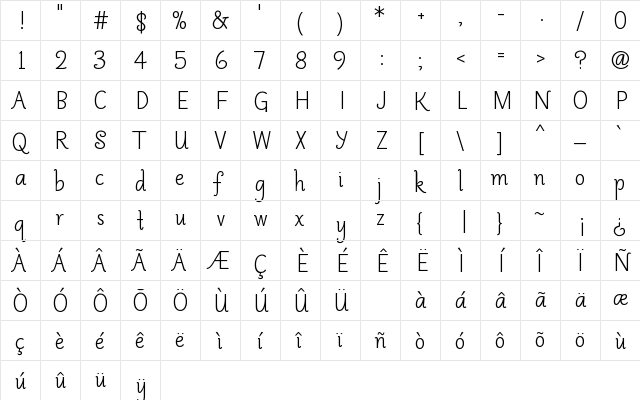
AmbergerSansOne1 Regular
Design Context for AmbergerSansOne1 Typeface
AmbergerSansOne1 is a composed and adaptable typeface that performs quietly and consistently across a wide range of design contexts.